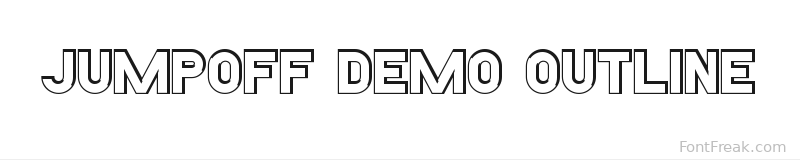
Jumpoff Demo
Jumpoff Demo Outline
Jumpoff Demo by Noah Type is a striking display font that captures attention with its bold, outline style. This decorative font features a unique blend of sharp angles and smooth curves, creating a dynamic visual aesthetic that is both modern and playful. The stroke weight varies significantly, adding depth and character to each letterform. The ample spacing between characters enhances readability while maintaining an energetic feel, making it perfect for eye-catching designs.
This font is ideal for a variety of creative projects. Its boldness makes it particularly suited for large-scale applications, such as movie posters, where it can command attention and set the tone for the film. Additionally, Jumpoff Demo works wonderfully for branding elements, such as restaurant menus, where its distinctive style can help convey a sense of personality and flair. It’s also a great choice for promotional materials, like flyers and social media graphics, allowing small business owners to stand out in a crowded market. Furthermore, content creators can utilize this font for title cards in videos to add an engaging visual element that draws viewers in.